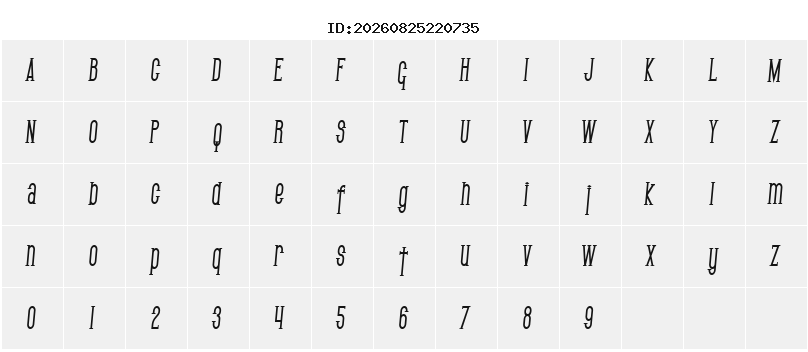
SF Gothican Condensed Preview
About SF Gothican Condensed.ttf
SF Gothican Condensed.ttf is a modern, elegant sans-serif font designed for ultimate readability and visual harmony. Perfect for branding, headlines, web design, and print materials.